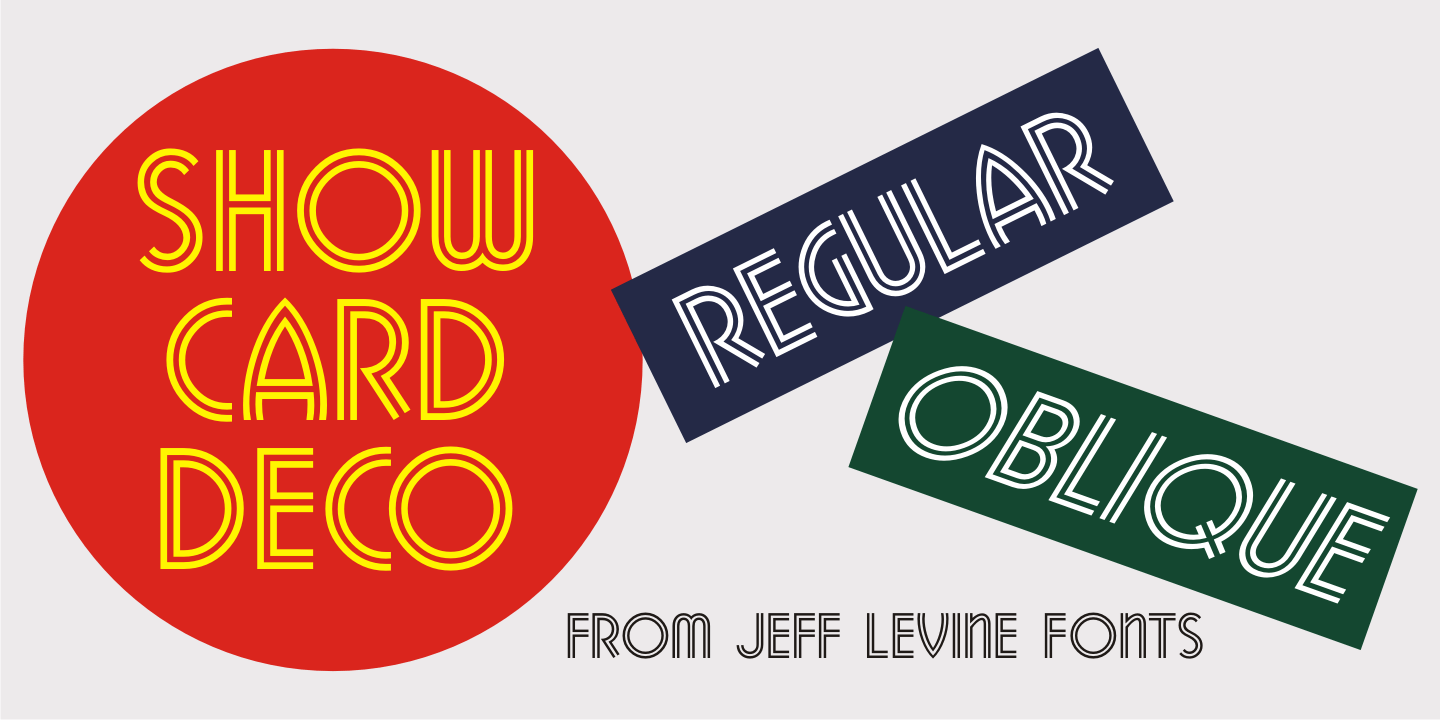
Show Card Deco
Show Card Deco JNL is a hybrid of examples from hand lettered titles found on various song folios from the Carl Fischer Music Library circa the 1930s and is available in both regular and oblique versions.
This particular typeface lends itself perfectly to show cards, posters, headlines and display titling which captures the modern, streamlined design of the Art Deco era.